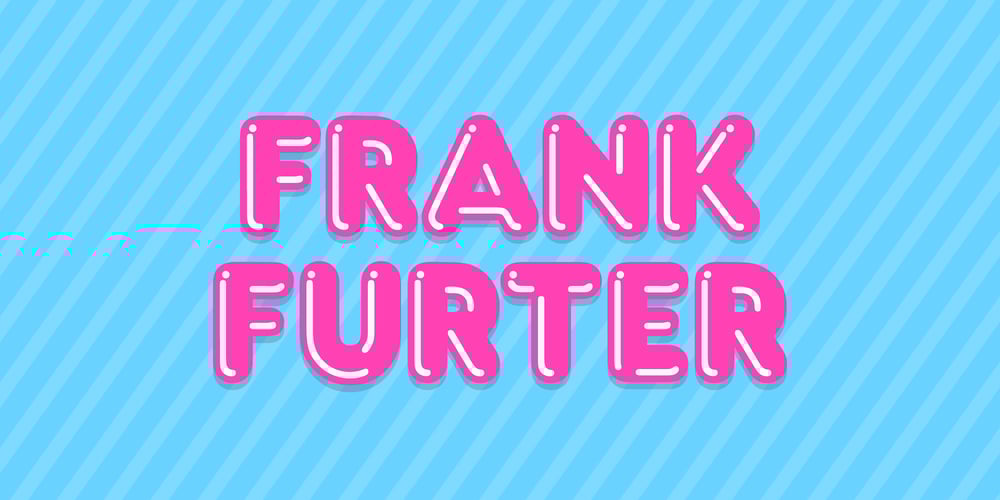
Frankfurter Font Family was designed by Bob Newman, Alan Meeks, Nick Belshaw, Esselte Letraset and published by ITC. Frankfurter contains 4 styles and family package options. Frankfurter font is the work of designer Alan Meeks. The most distinctive feature of this informal, sans serif typeface is its curved or rounded terminals. The letters look best when set closely together. Frankfurter Medium is well-suited to a variety of display applications and comes in four weights, regular, medium, highlight and inline.